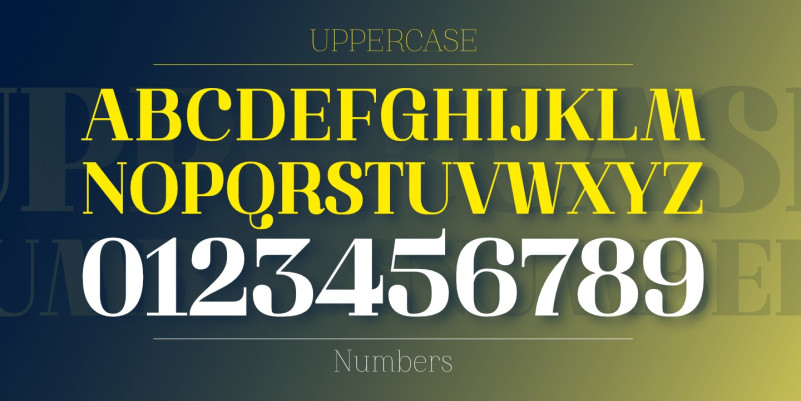
Athachantr Font
Athachantr Serif Font, It can easily be matched to an incredibly large set of projects, so add it to your creative ideas and notice how it makes them stand out!